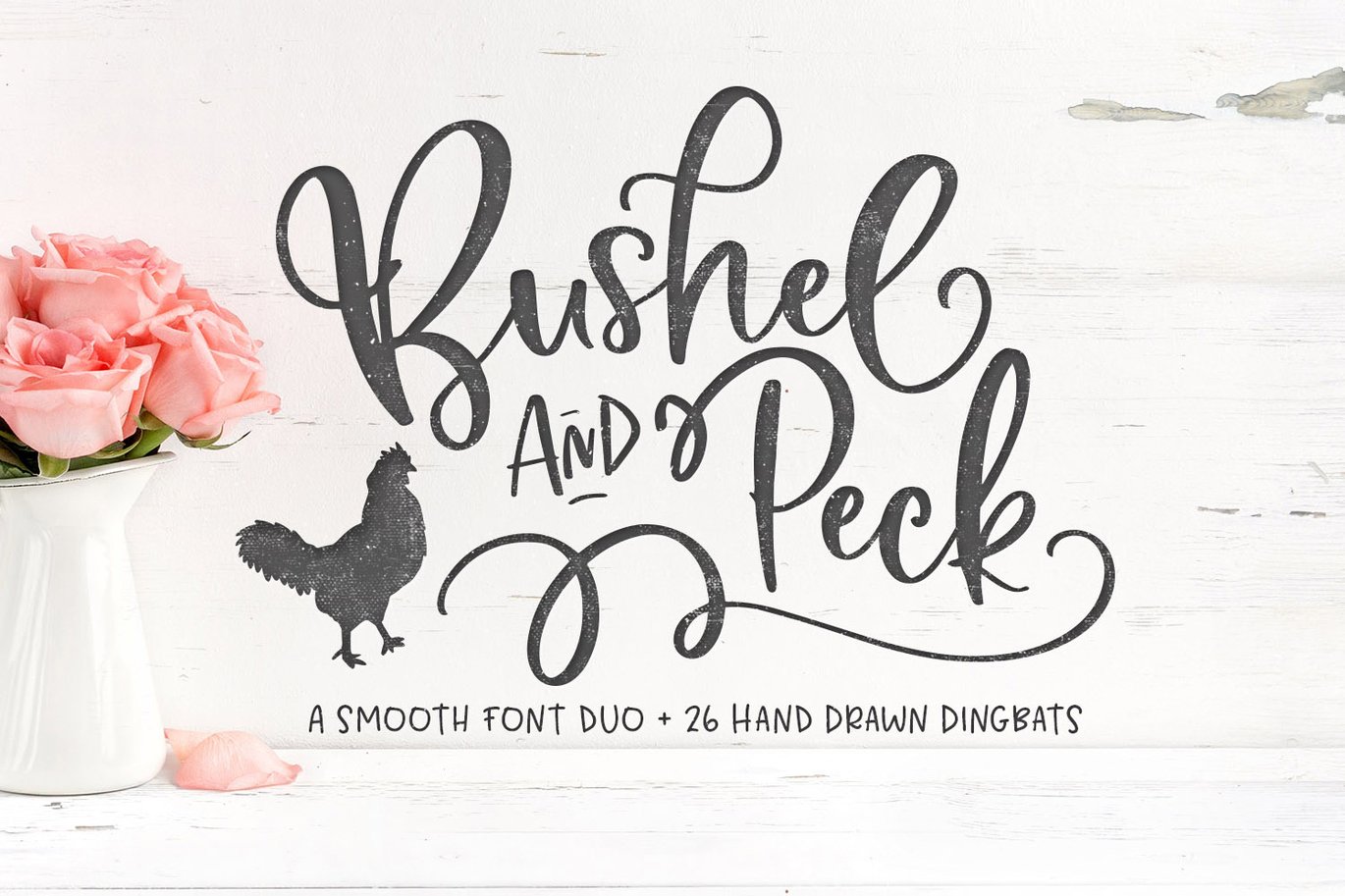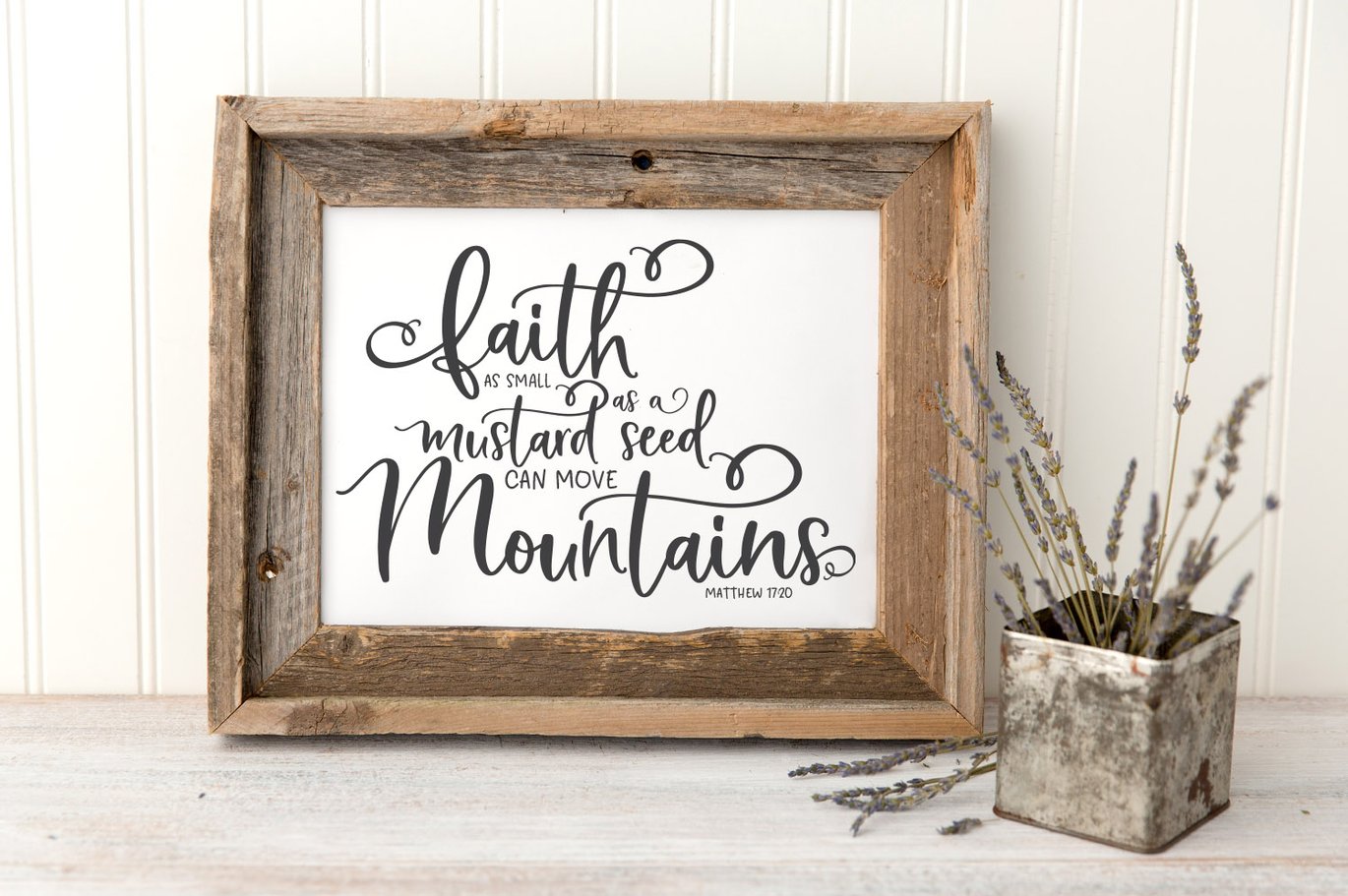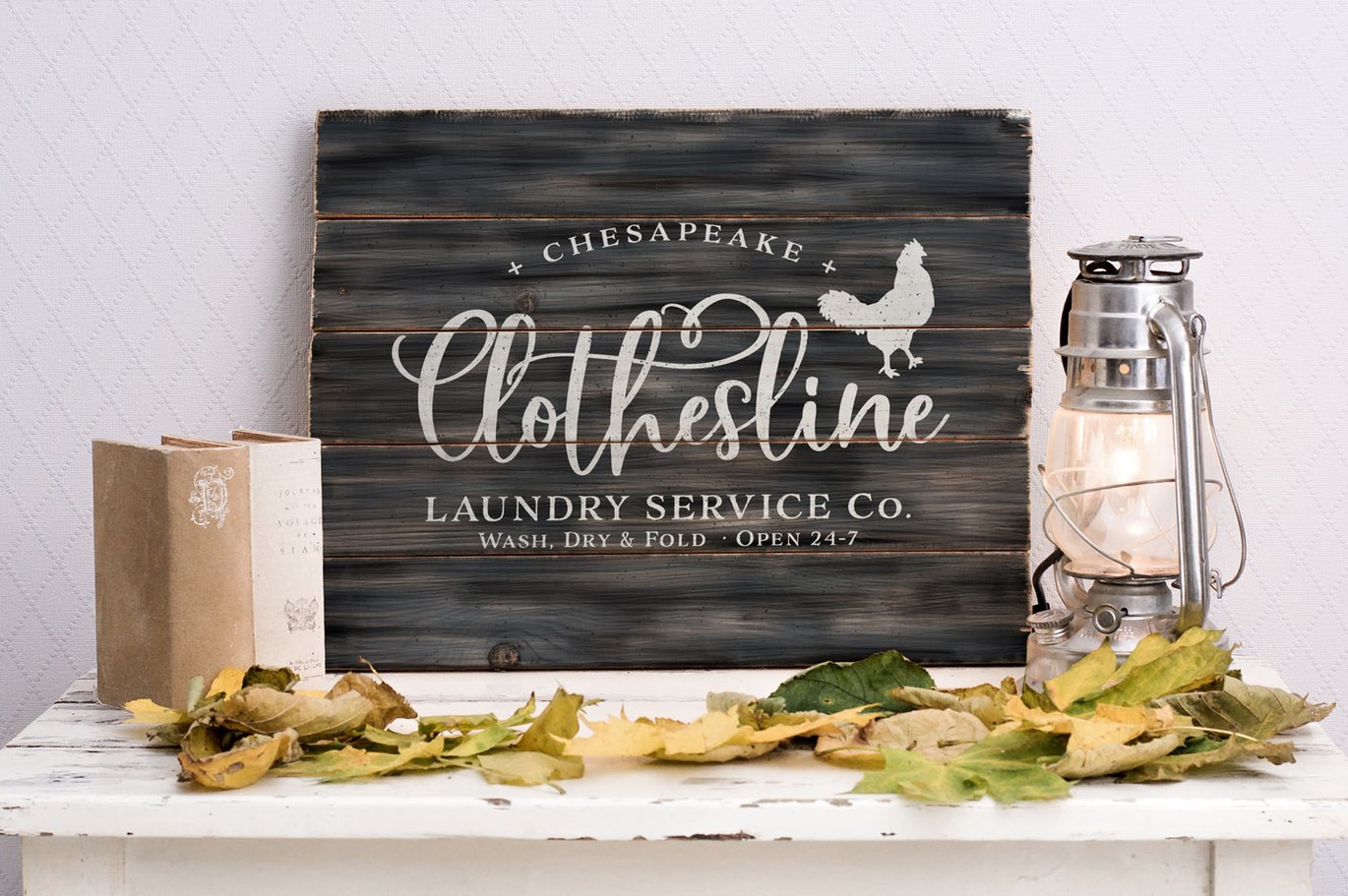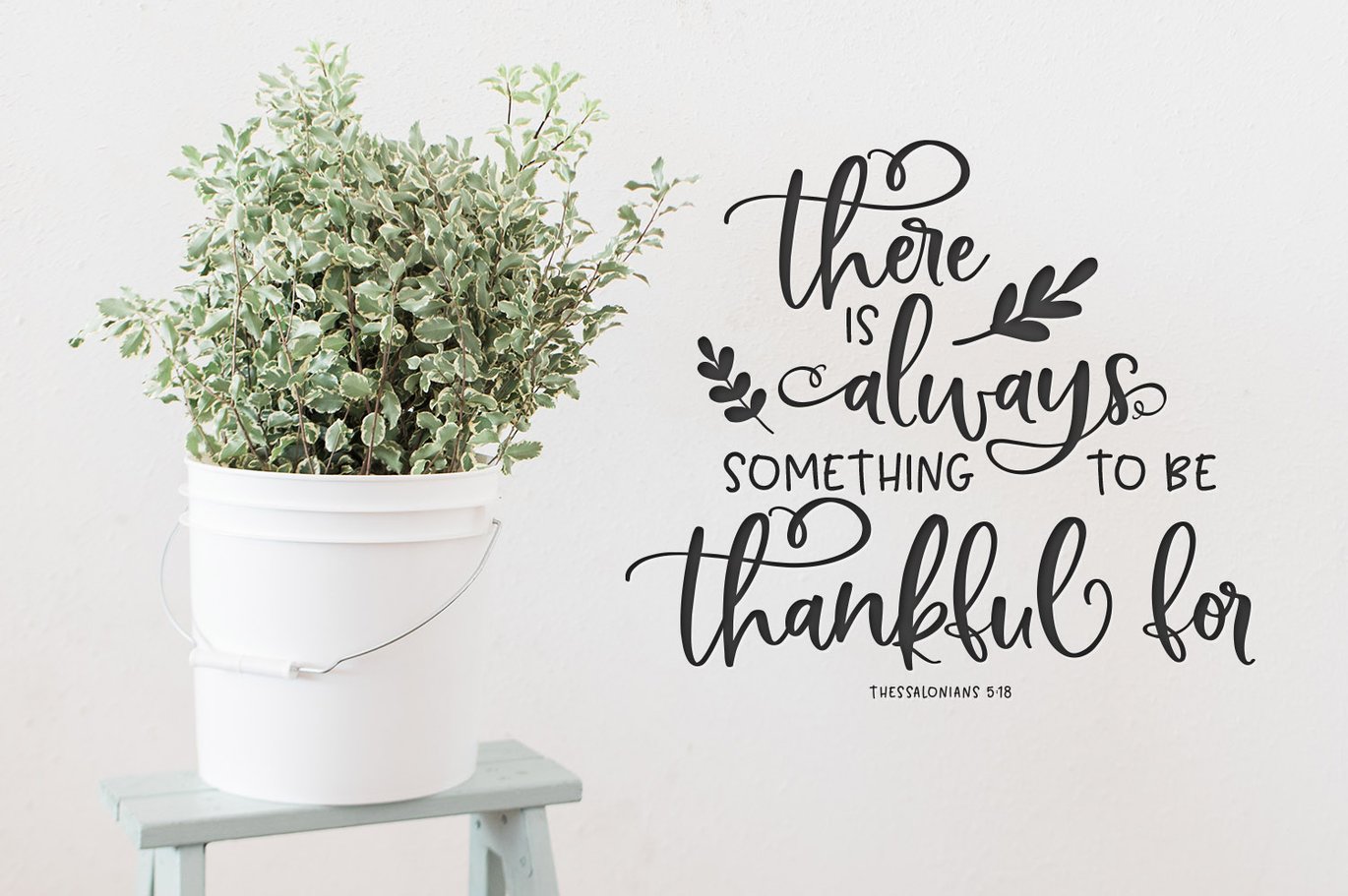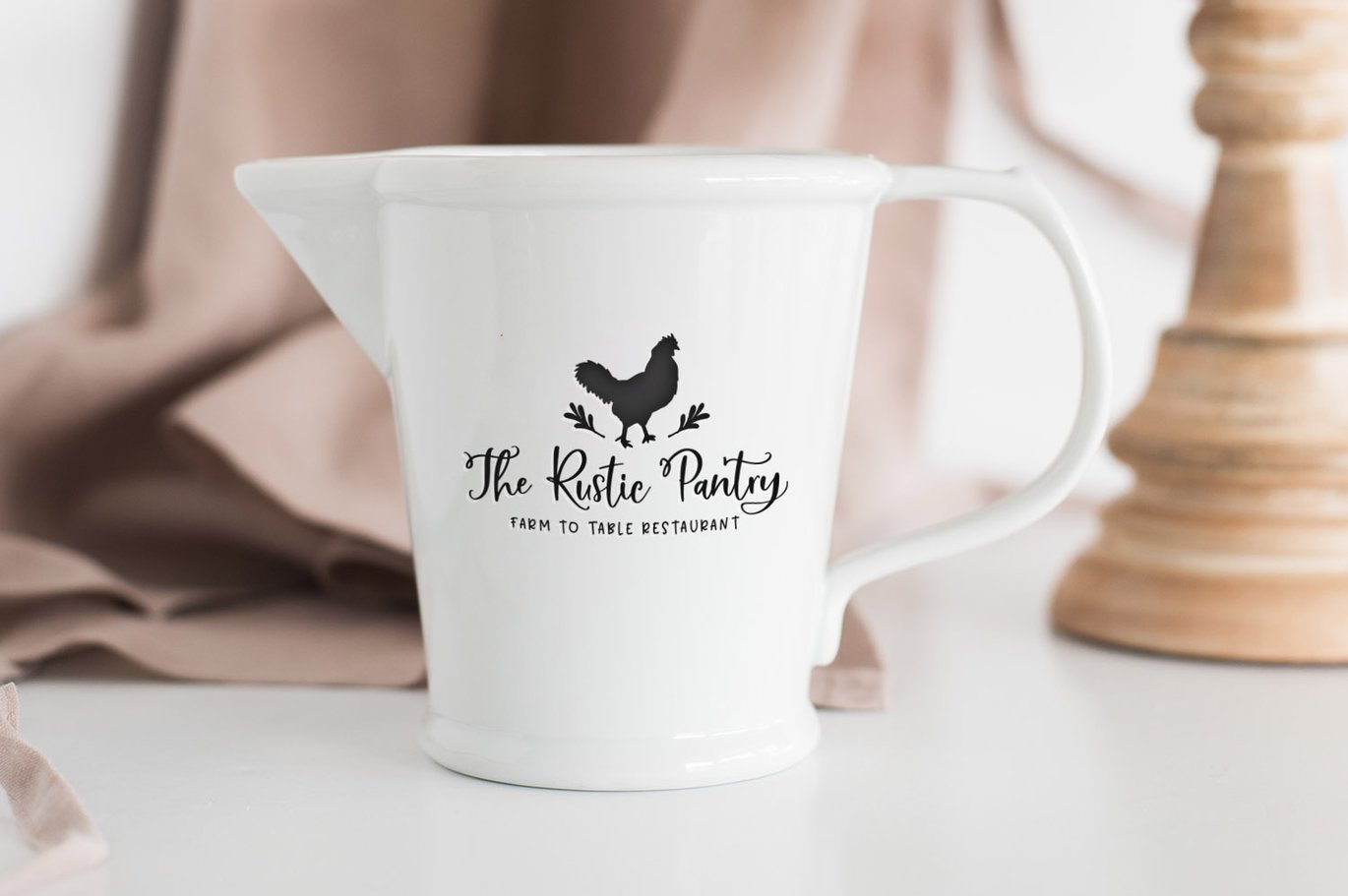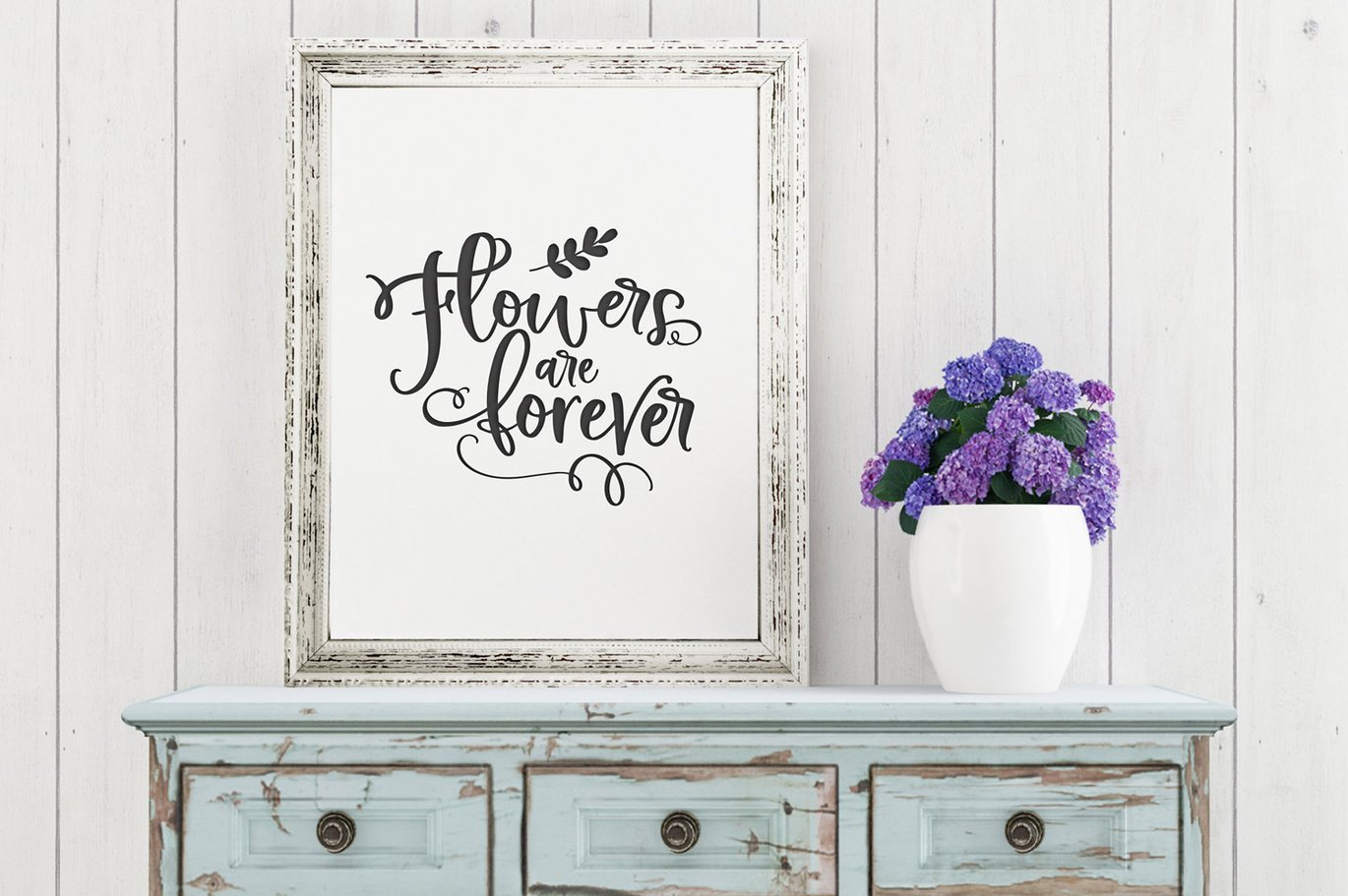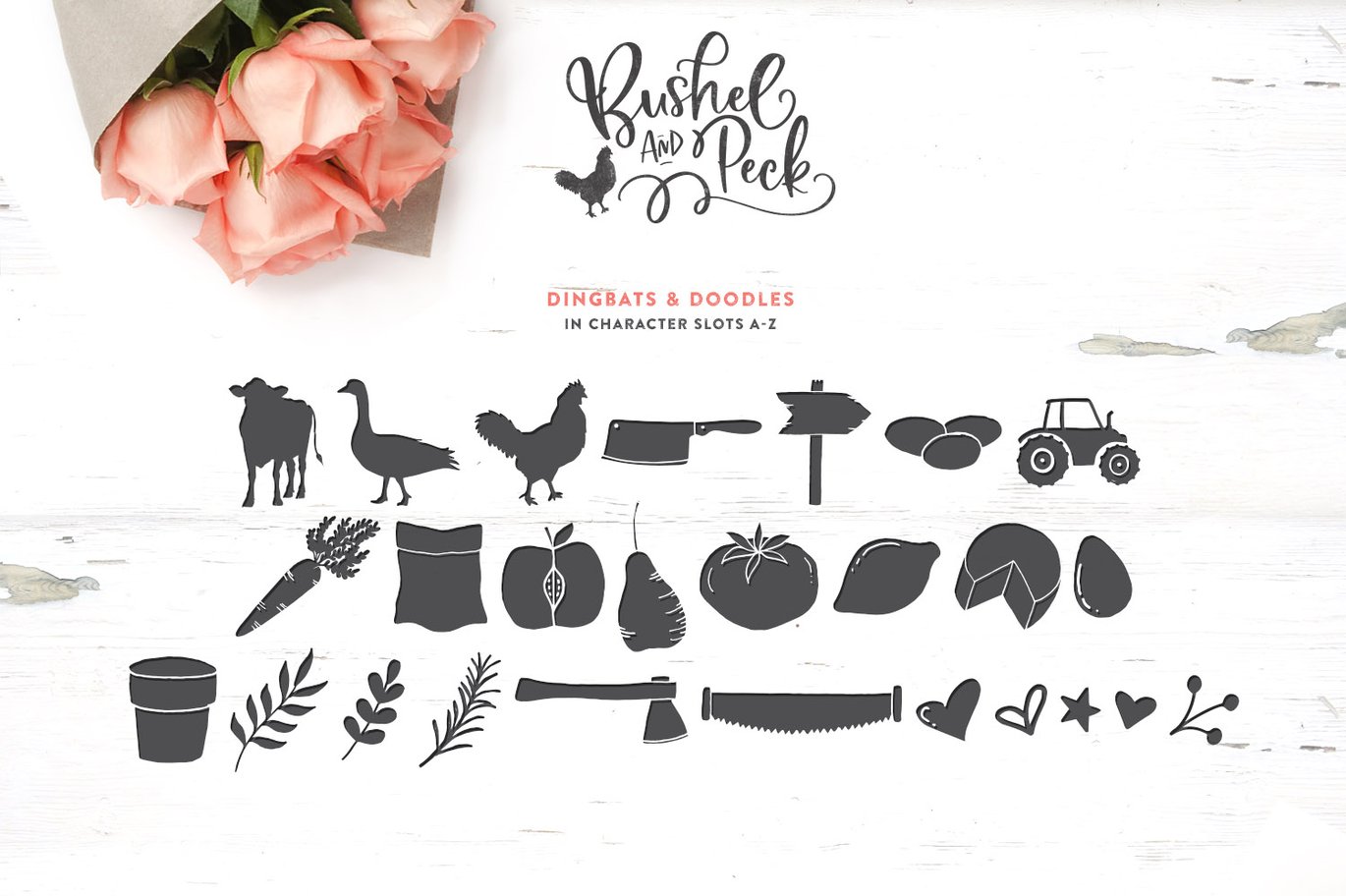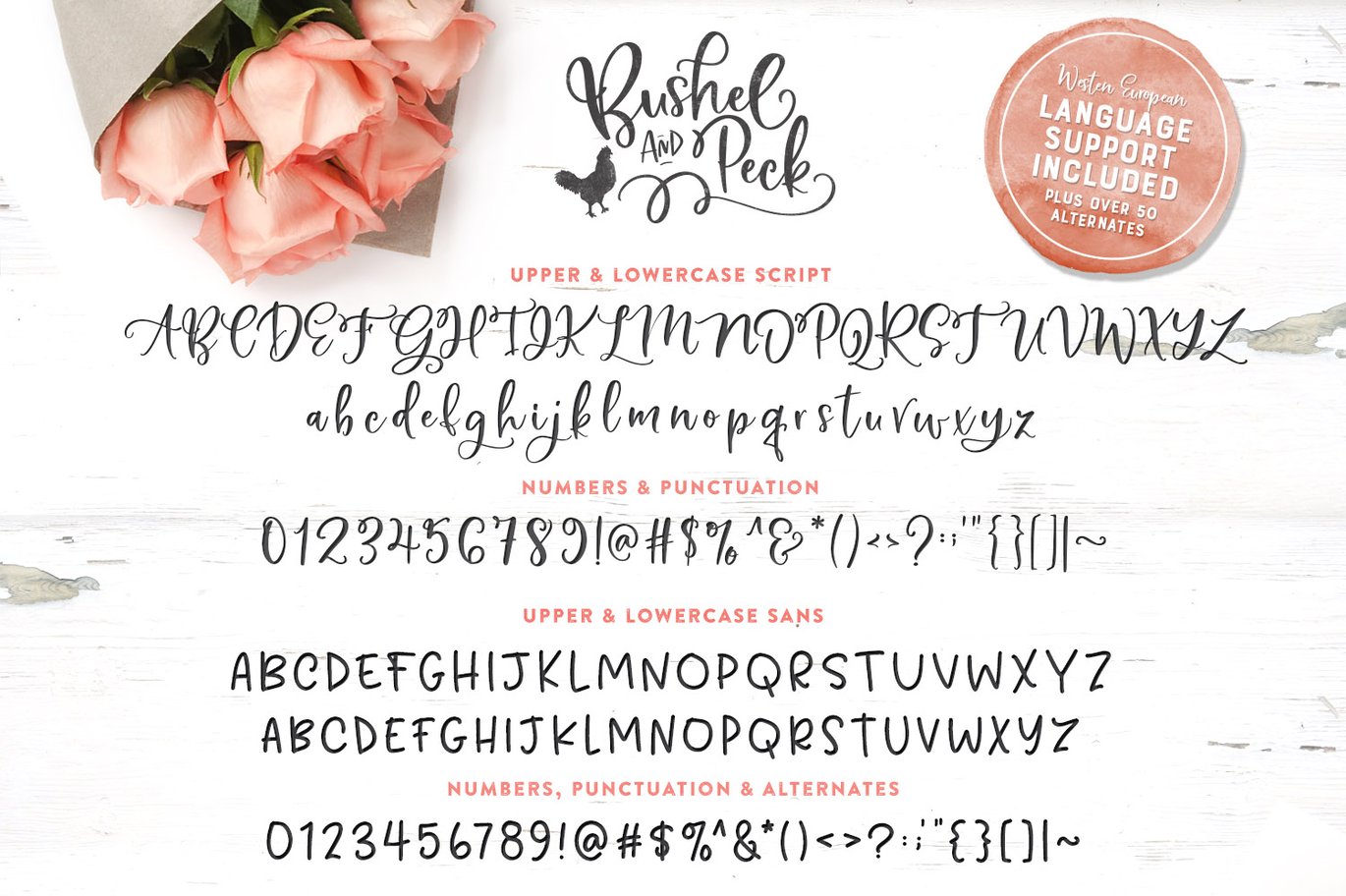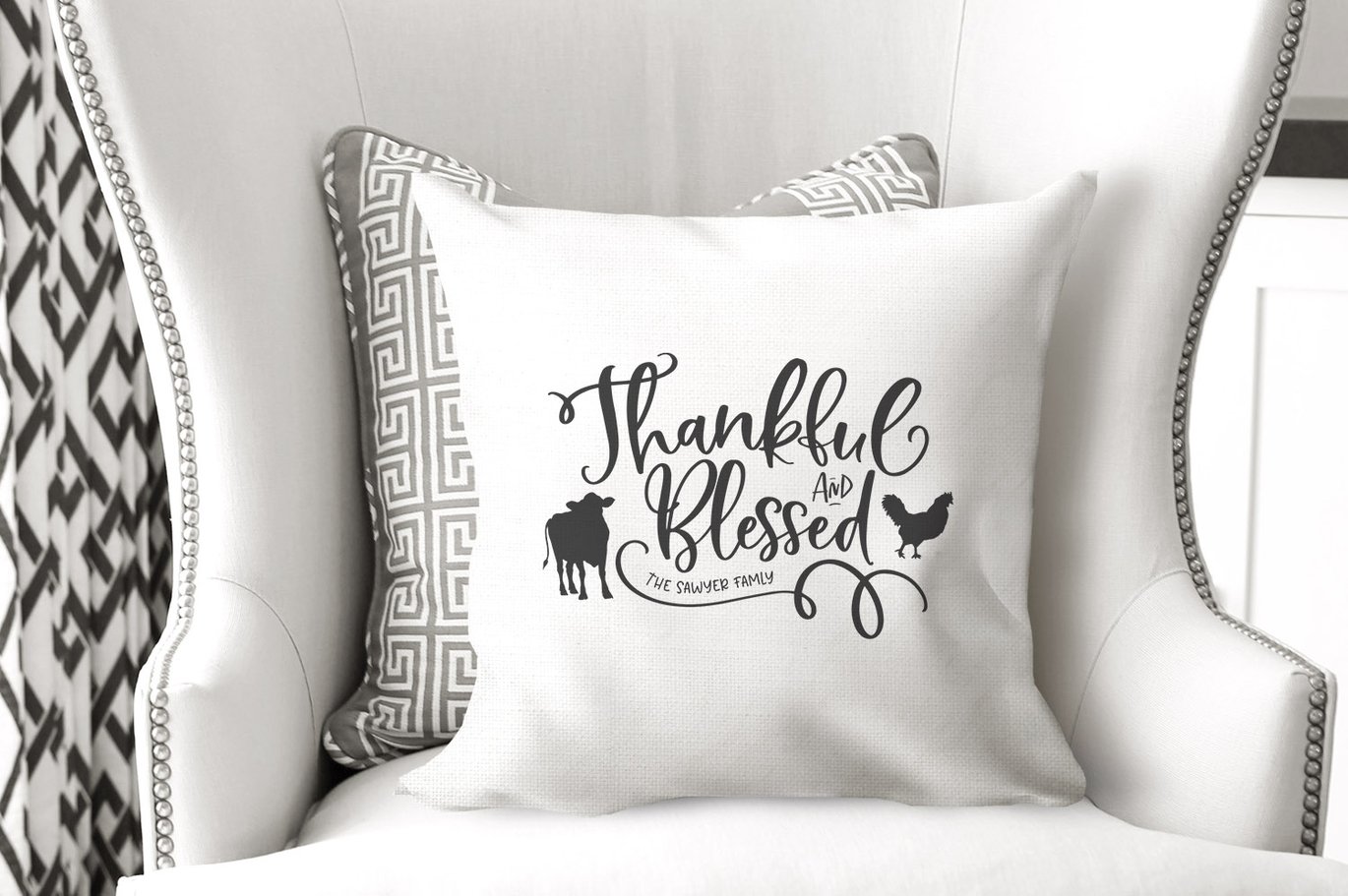
Bushel & Peck Fonts + Dingbats
Introducing Bushel and Peck – A flirty, bouncy, SMOOTH script with over 50 alternate characters & an adorable, country dingbat font.
• Bushel & Peck Script (OTF) – A flirty decorative script, with over 50 alternates & Western European language support.
• Bushel & Peck Sans Serif (OTF) – A simple all-uppercase, handwriting font to compliment your script.
• Bushel & Pack Dingbats (OTF) – 26 hand drawn country dingbats.
Combine fonts and dingbats to create adorable branding, lovely quotes, stickers, prints, journals & more!